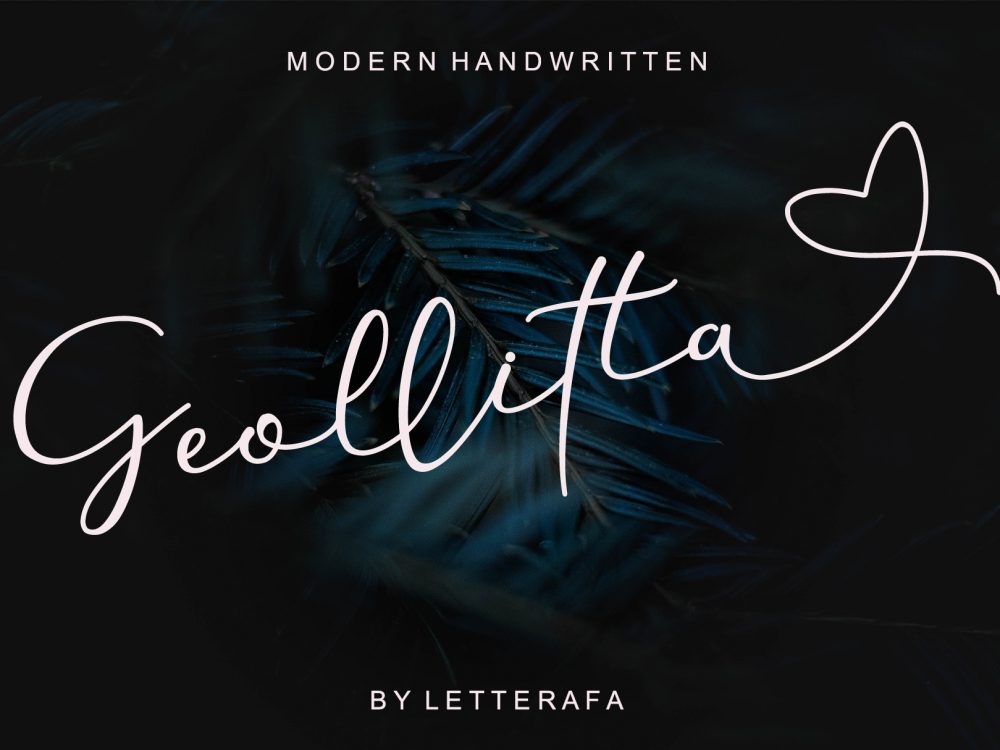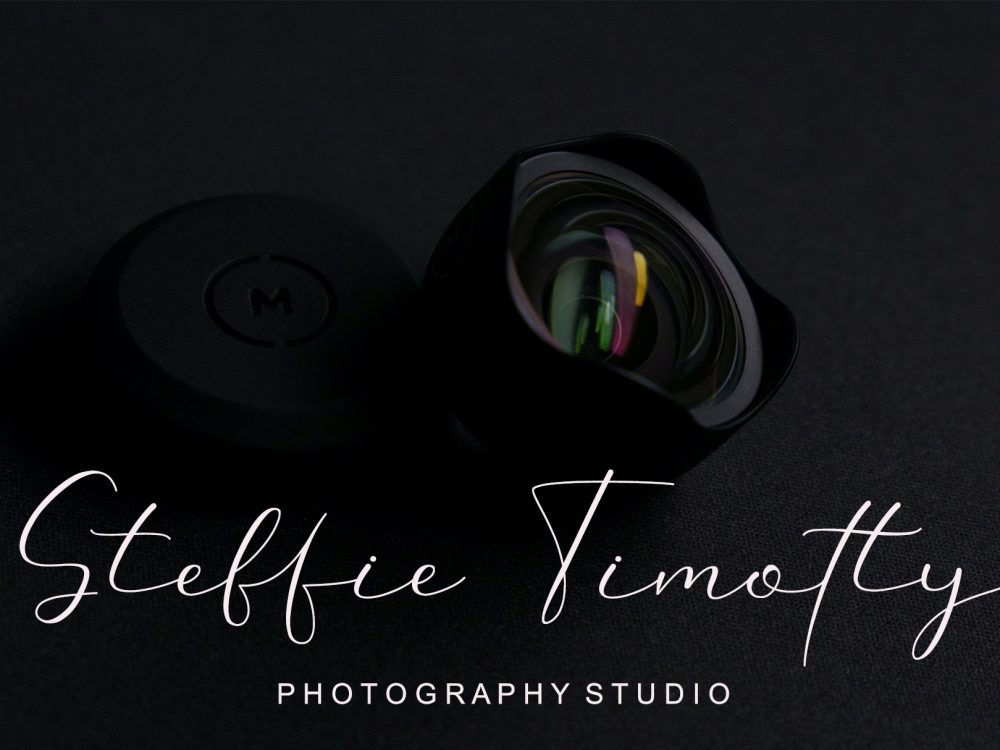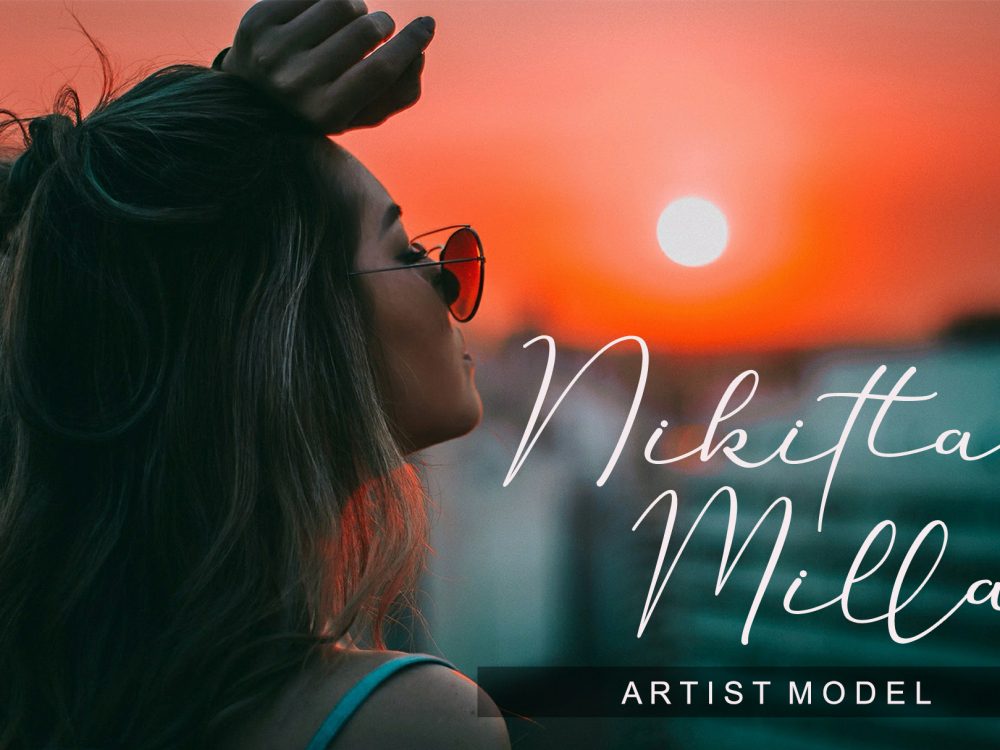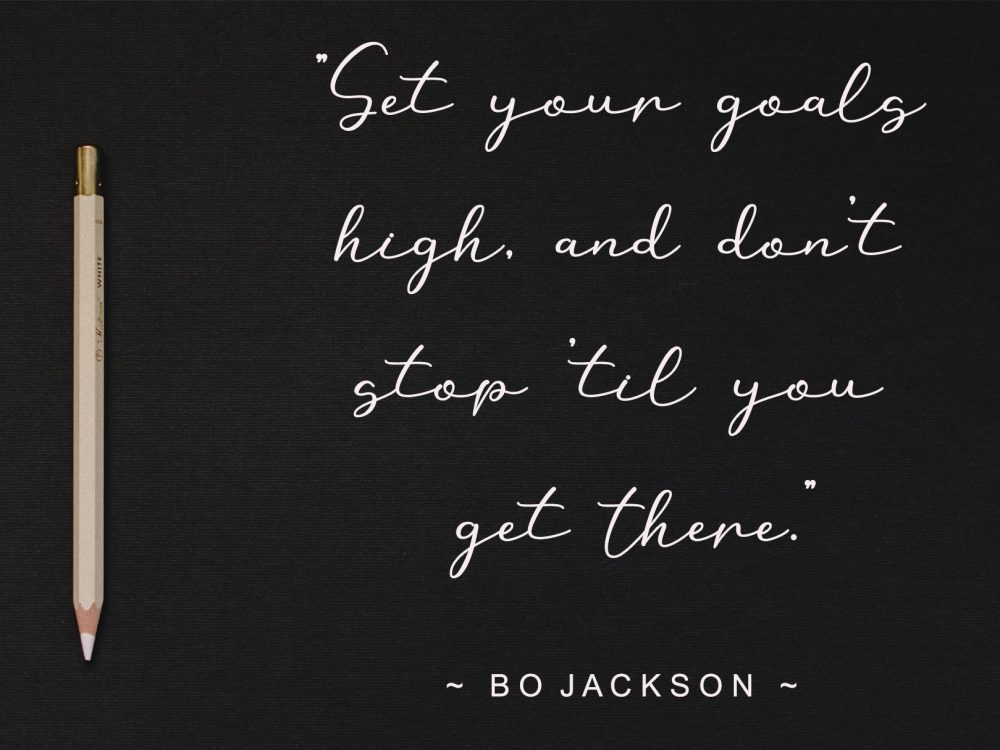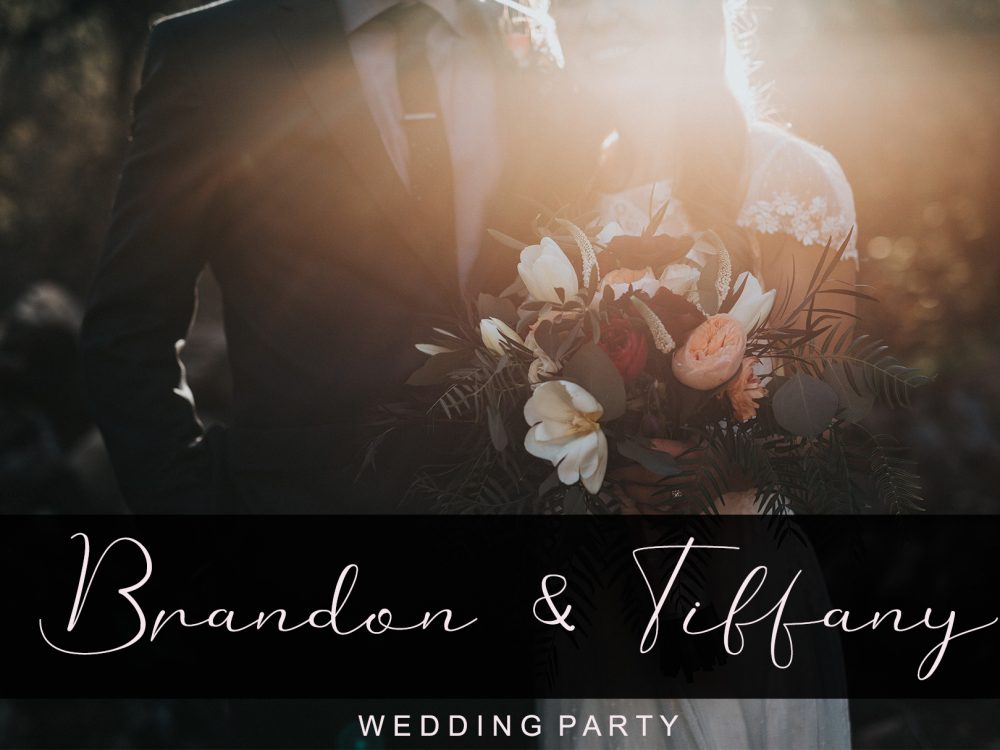
Geollitta Free Font
Geollitta Free Font is an interesting script typeface that features a modern calligraphic style.  It has flowing letters that will give your designs a unique and sweet look and are very suitable for creating various projects that require a scripted handwritten font. Use this font to create memorable romantic posters, wedding invitations, greeting cards, branding, flyers, t-shirt and pillow prints, and more. Improve your professional level using this font. If you like it don’t forget to check out the full version.